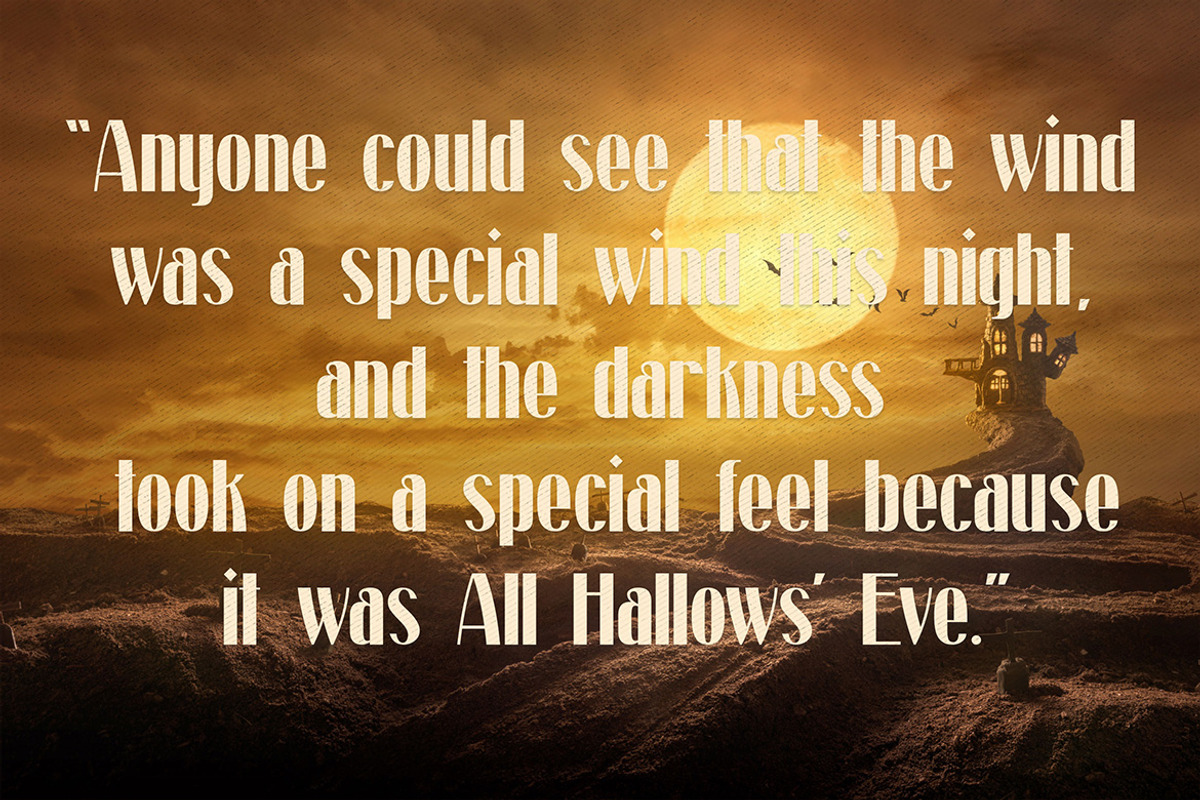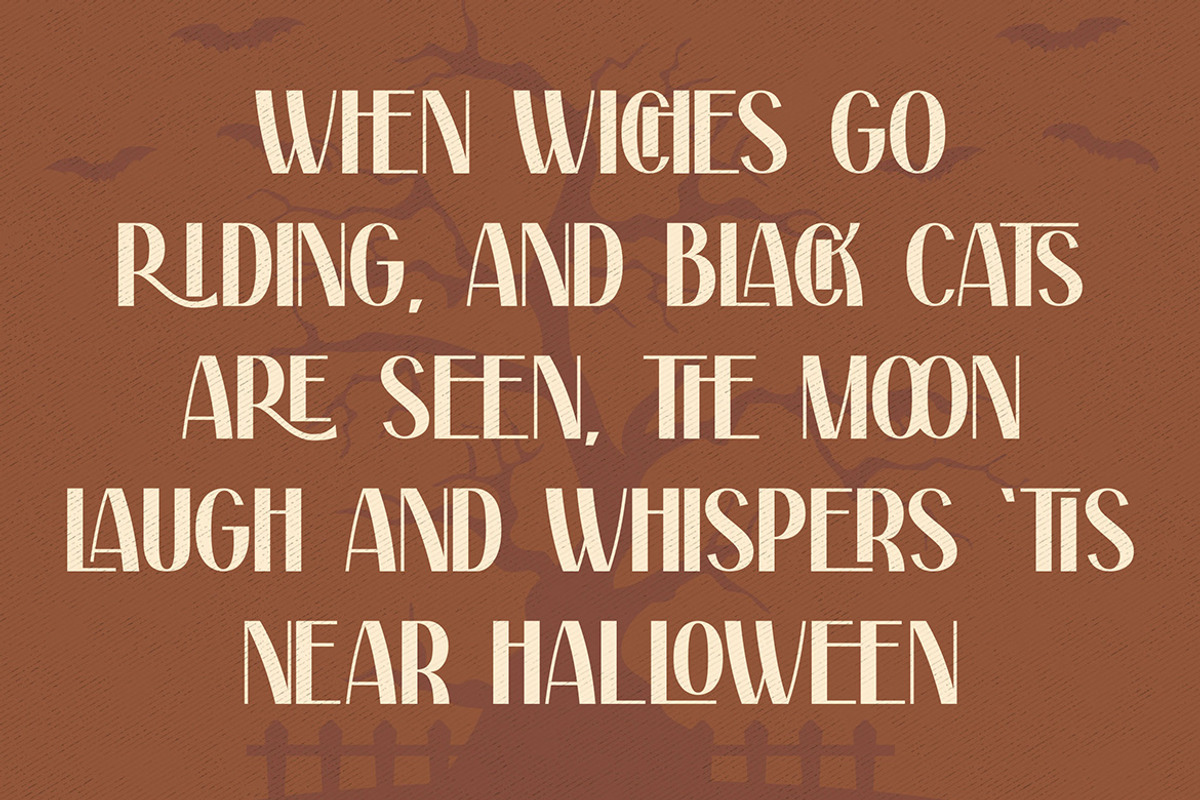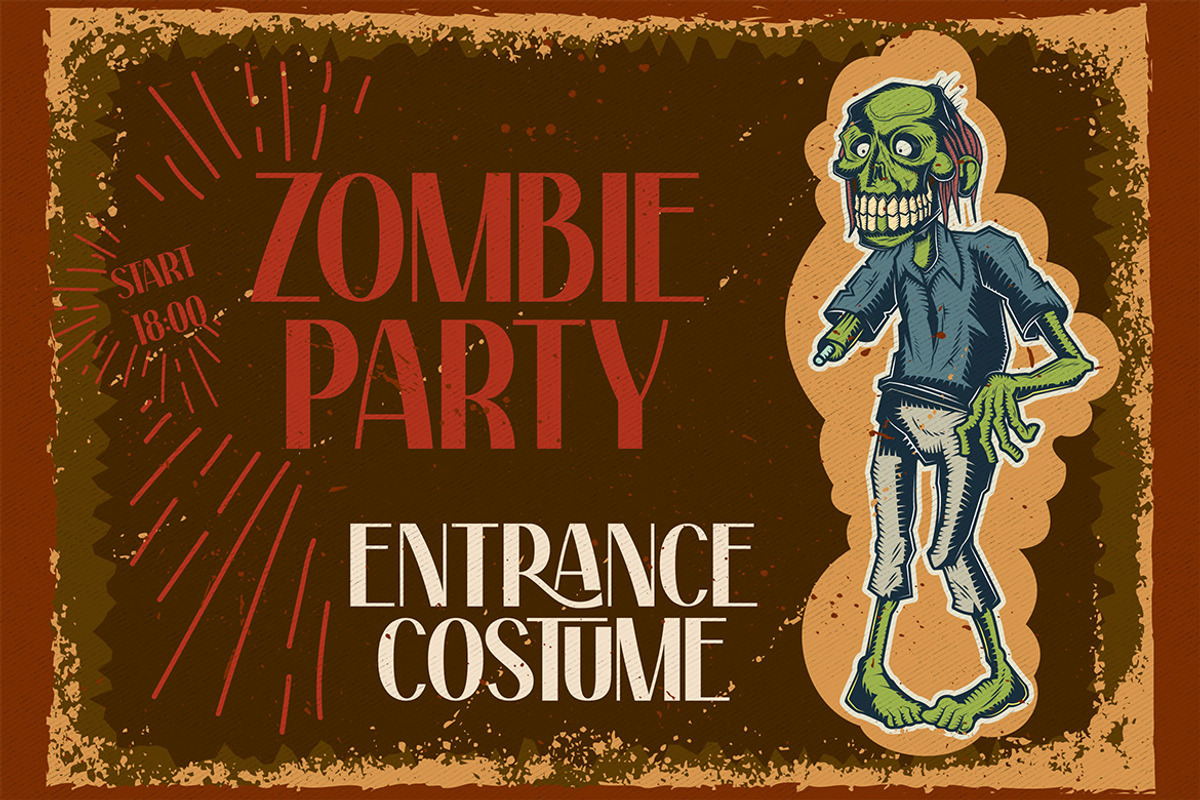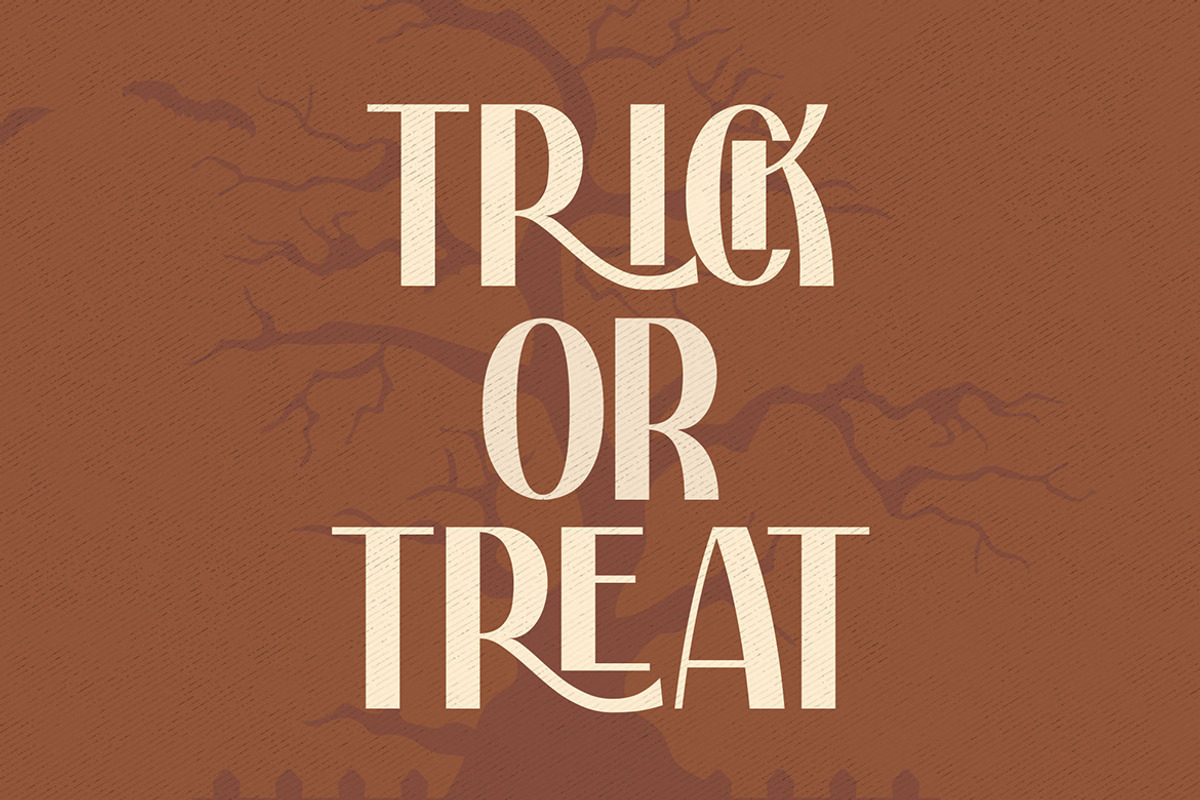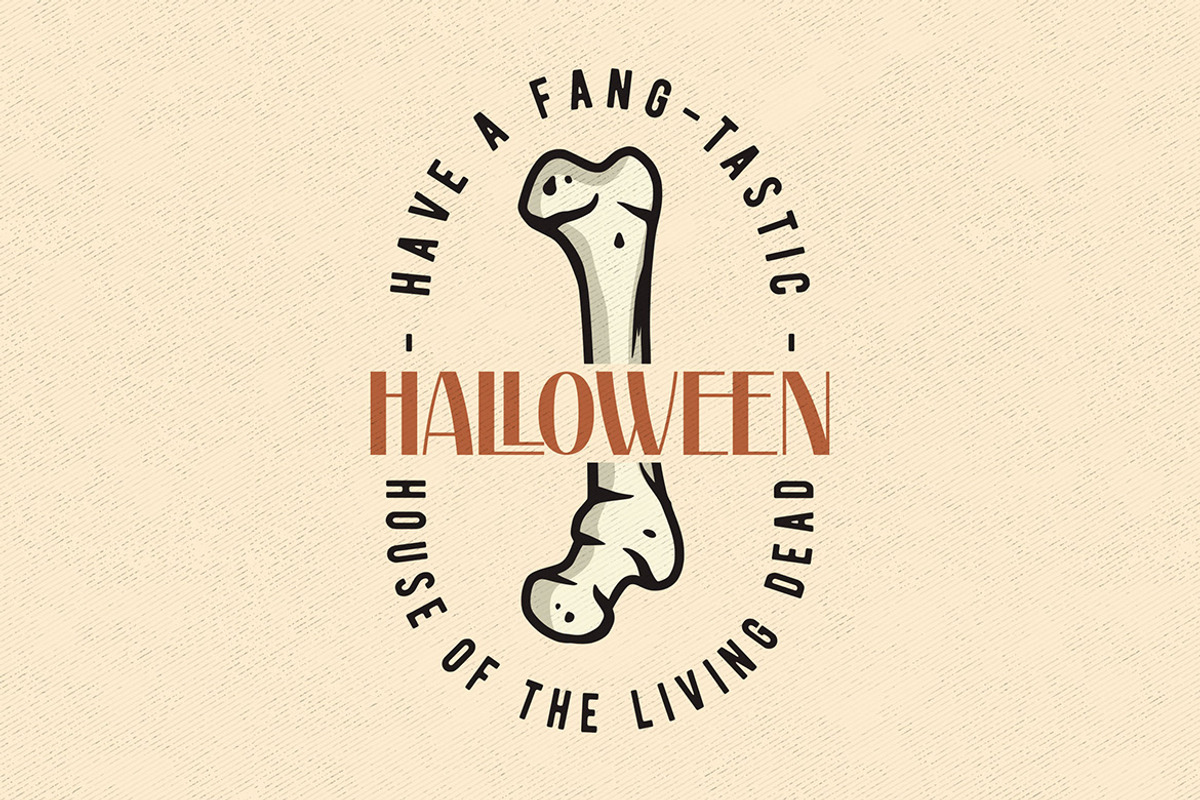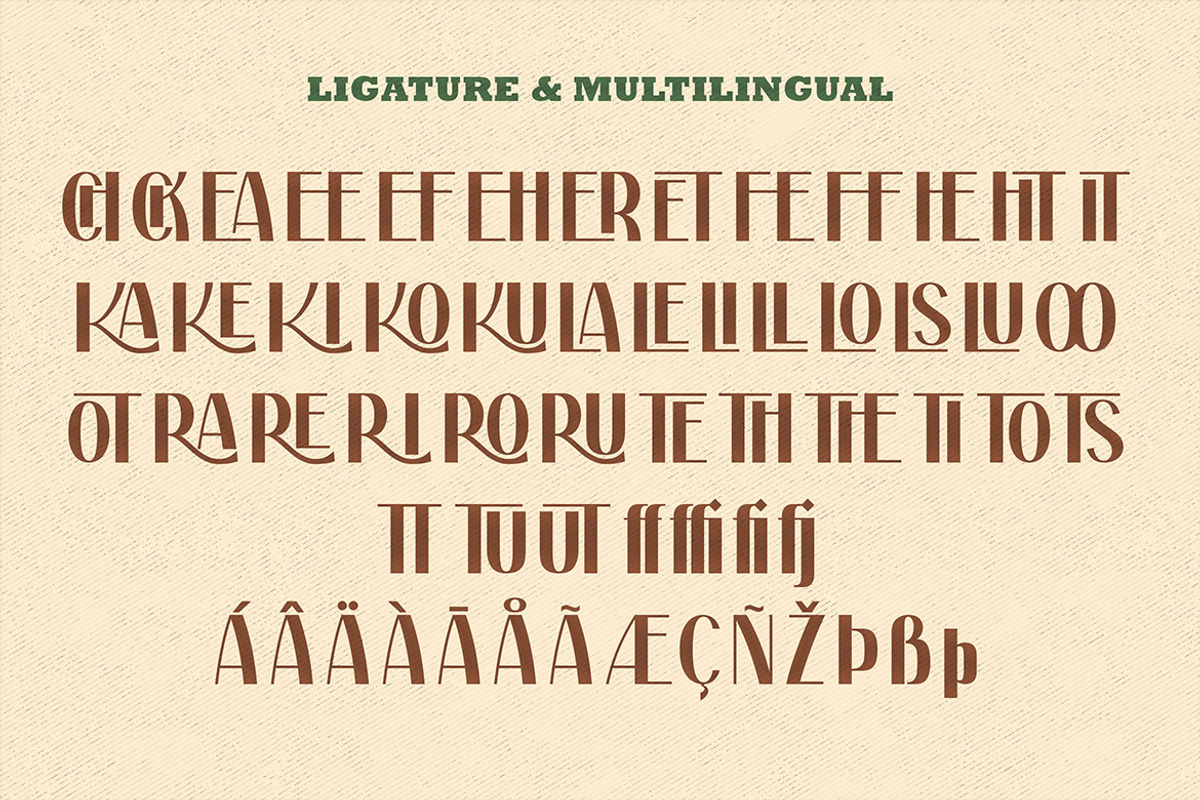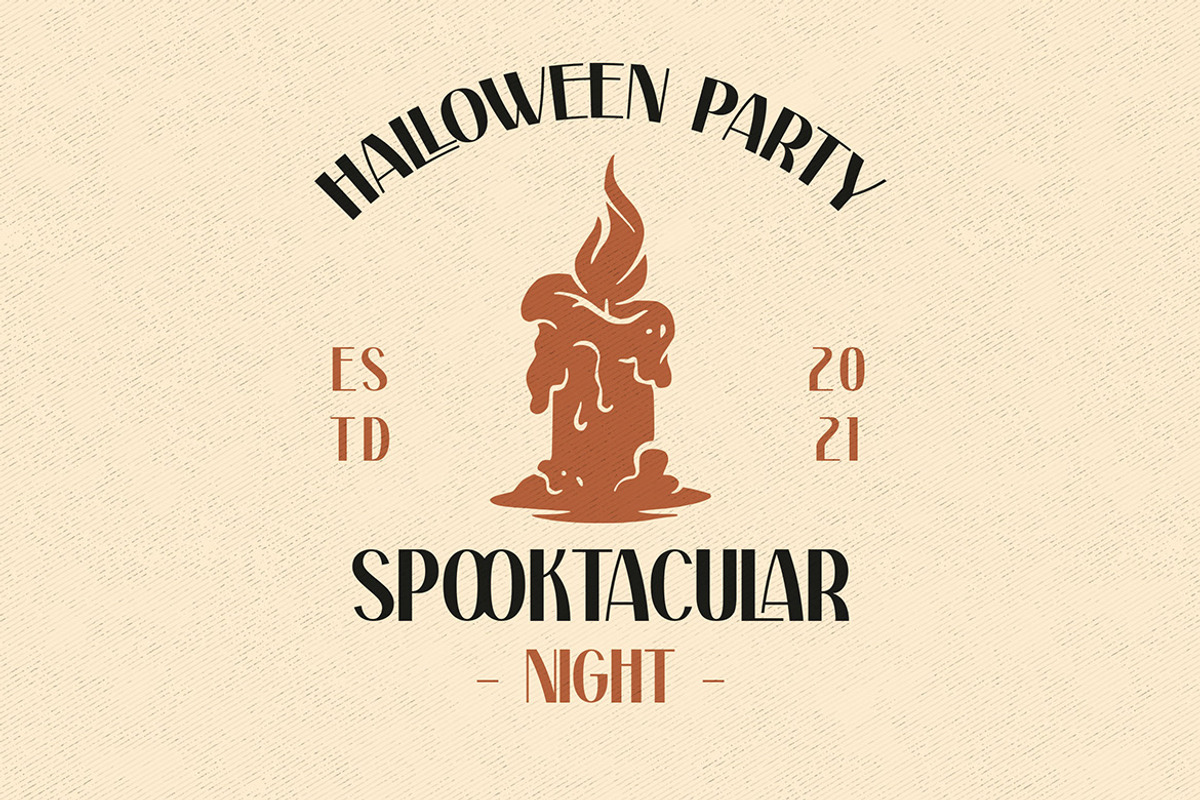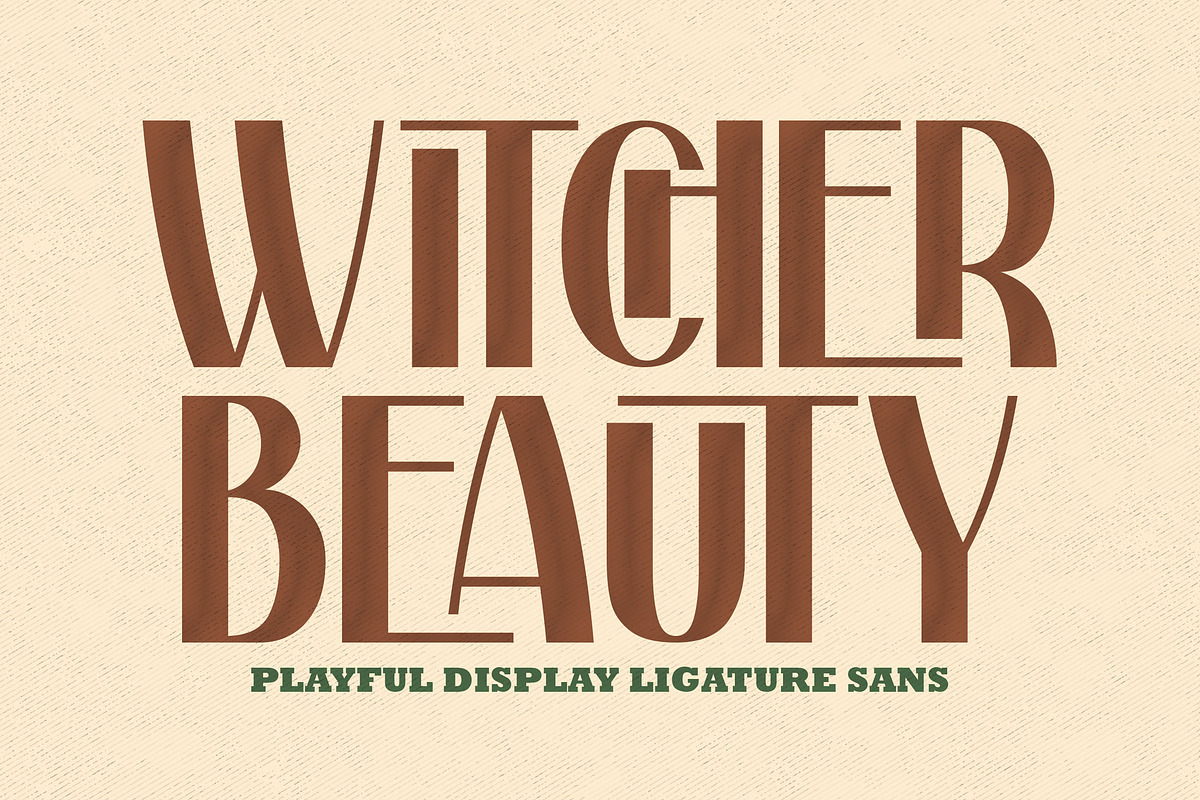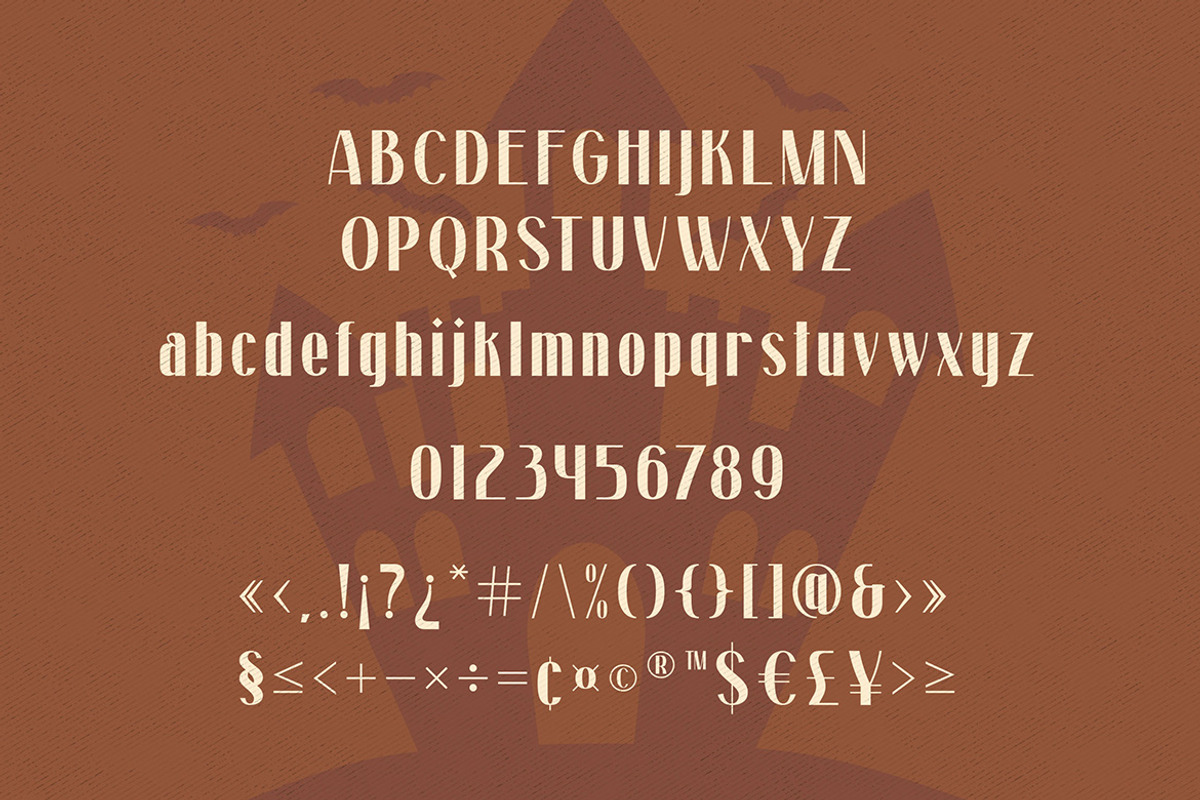
Withcher Beauty | Ligature Sans
Introducing the new Withcer Beauty Typeface!!! Withcer Beauty is a playful display ligature san serif. This font is both modern and nostalgic and works great for Halloween, logos, magazine, social media. Already matched up and ready to be used together for your next design! Perfect for editorial projects, Halloween, Logo design, Branding, product packaging, magazine headers, or simply as a stylish text overlay to any background image.
No special software is required to type out the standard characters of the Typeface. To access the Opentype Ligatures, you will need software that supports Opentype features in fonts. Current Language Support : Danish, English, Finnish, French, German, German (Switzerland), Norwegian Bokmål, Norwegian Nynorsk, Portuguese, Spanish, Swedish, Swiss German.